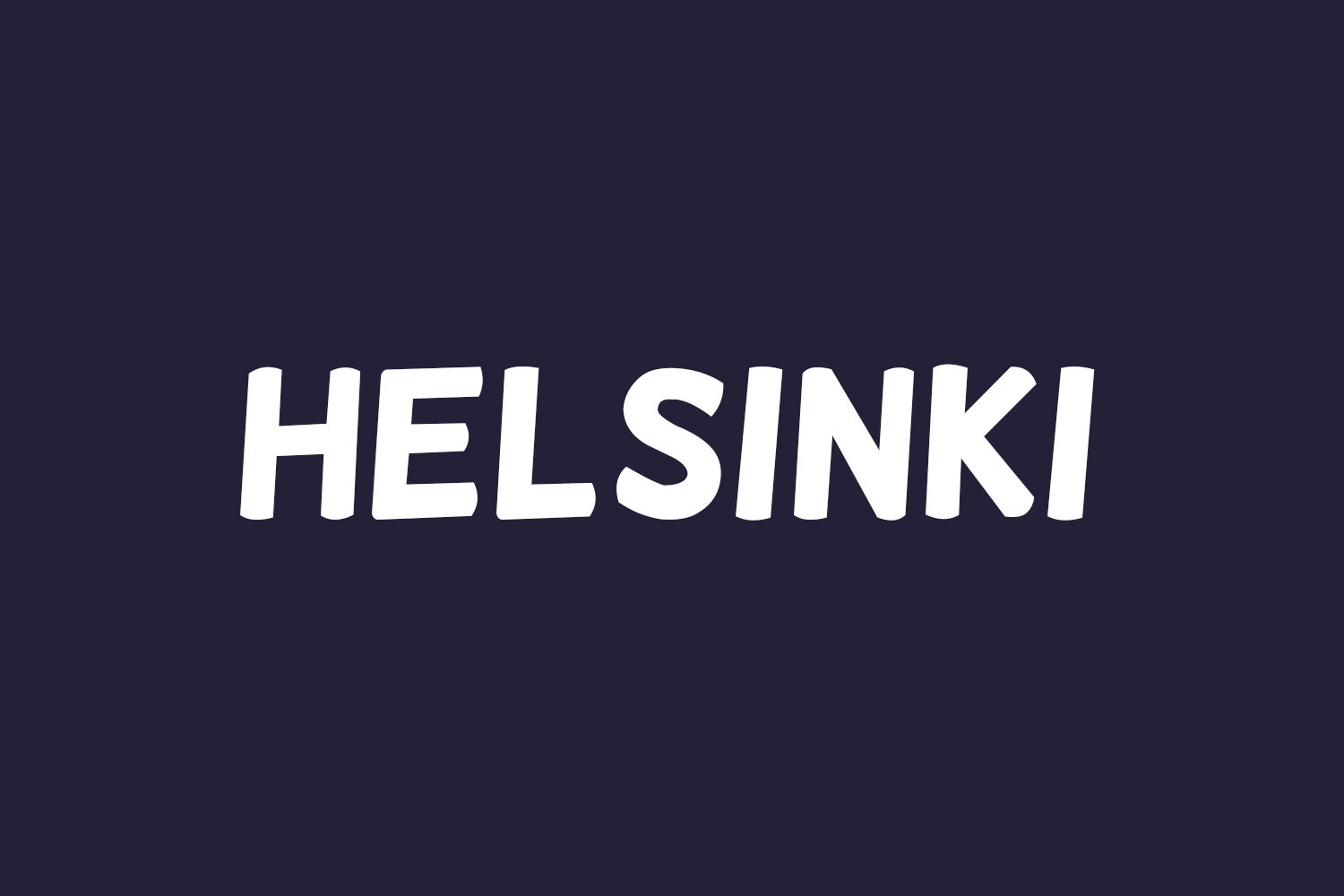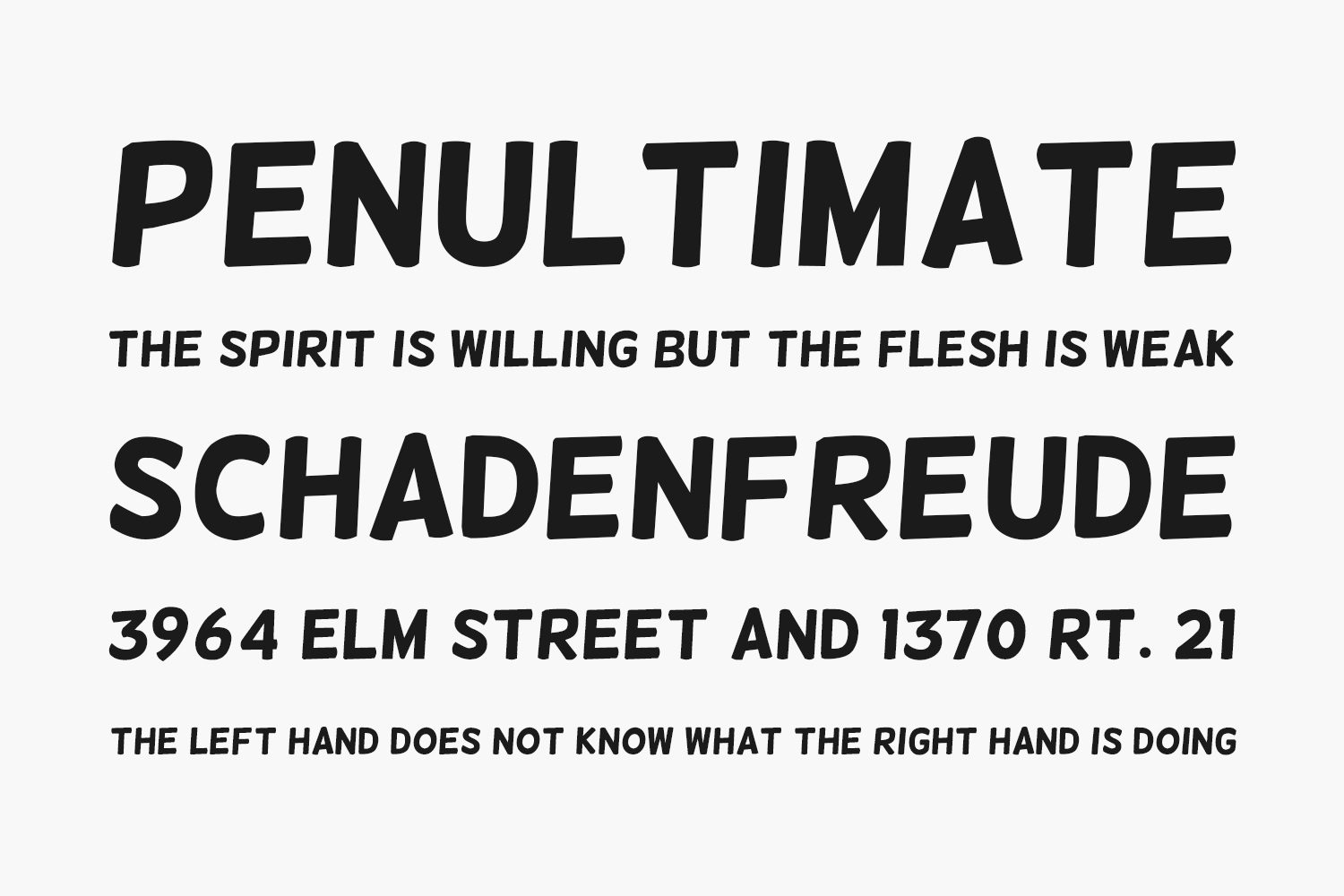
Helsinki Free Font is a refined version of the Vic’s own handwriting, altered to appear more similar to traditional ‘comic book’ lettering.
Designed by Vic Fieger